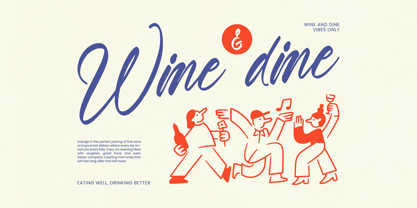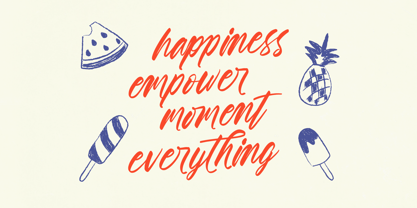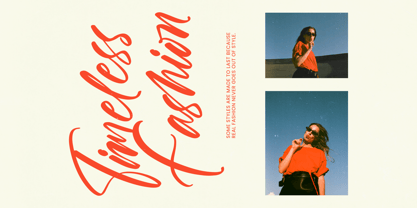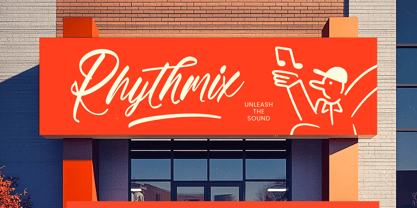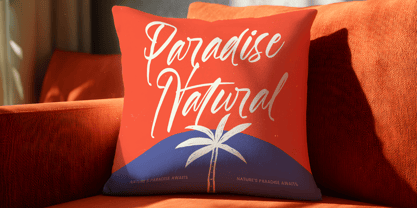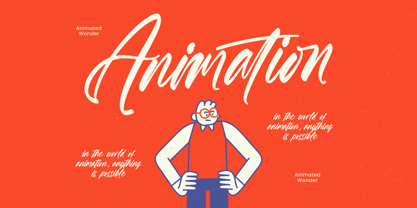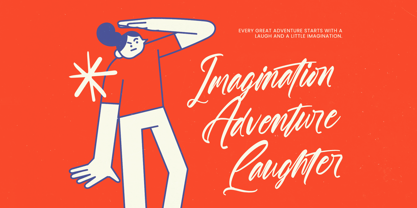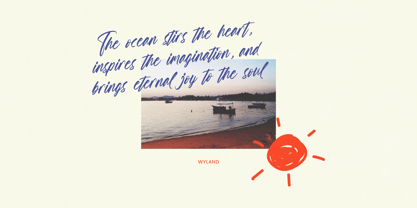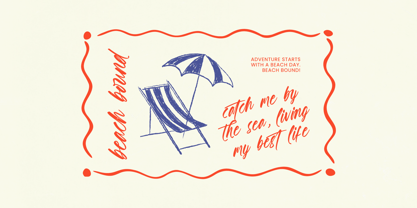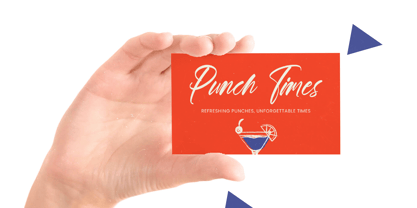
Sutter Youth
by Stylishtype Studio
The Sutter Youth Font Family was designed by Heru Utama Putra and published by Stylishtype Studio. Sutter Youth contains 2 styles and family package options.
Sutter Youth is a modern brush script packed with energetic strokes, smooth curves, and a youthful handwritten feel that brings warmth to any creative project. Featuring 126 expressive ligatures, 10 playful swashes, and a total of 466 glyphs, this typeface delivers authentic brush texture with clean baseline flow, making it perfect for branding, packaging, editorial illustrations, social media visuals, and lively advertising concepts. With its fresh character styling and handcrafted motion, Sutter Youth elevates your design with approachable personality and modern artistic charm.